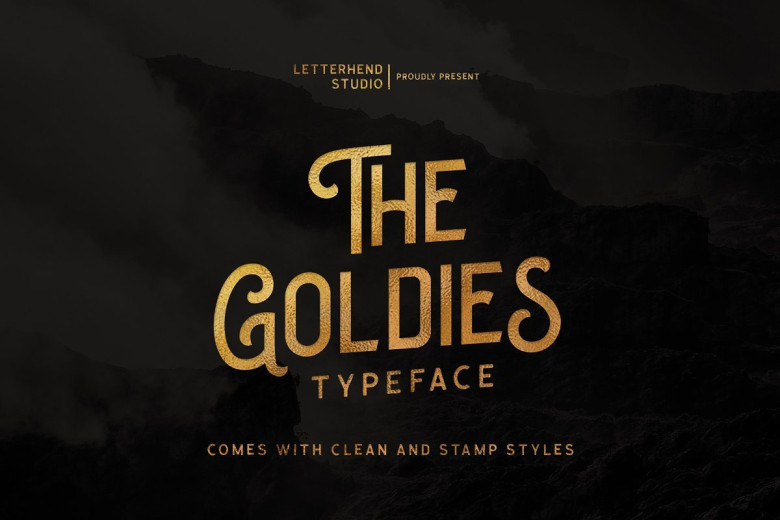
The Goldies Display Font
Hi Font Lovers! A display typeface, it is perfect for creating creative works. Introducing The Goldies Font! It is designed and shared by Letterhend. The Goldies is a A Display Typeface Family which is suitable for you who needs a typeface for headline, logotype, apparel, invitation, branding, packaging, advertising etc. This typeface is comes in uppercase, lowercase, punctuations, symbols & numerals, stylistic set alternate, ligatures, etc.